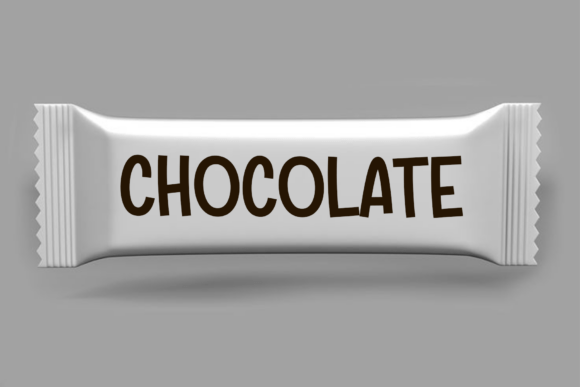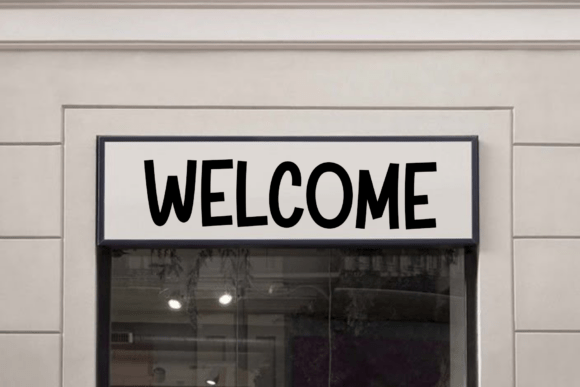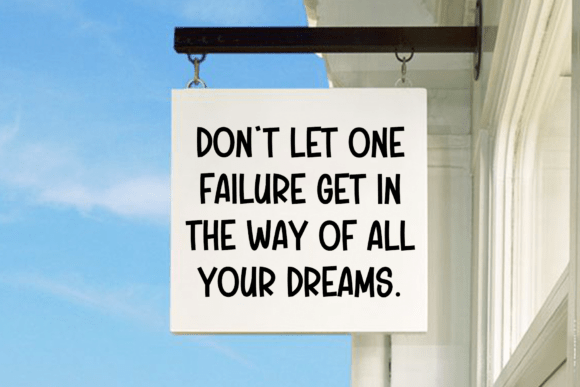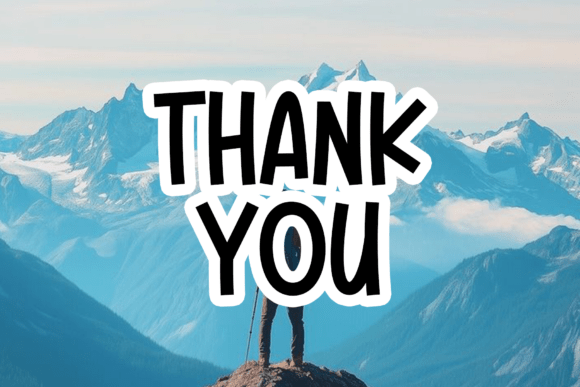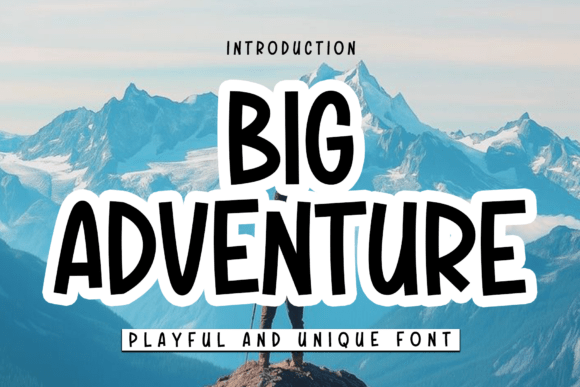
Introducing Big Adventure Font: Elevate Your Designs with a Modern Twist
In the world of typography, fonts play a crucial role in shaping the visual identity of a brand or project. For designers and crafters looking for a unique and modern sans-serif font, Big Adventure Font is an excellent choice. This smart and minimal handwritten font boasts rounded corners and distinctive letterforms, making it perfect for a wide range of applications, from branding and social media content to logos and digital projects.
What Makes Big Adventure Font Stand Out?
Big Adventure Font is designed to strike a balance between professionalism and creativity. Its soft yet striking appearance is achieved through the careful crafting of rounded corners and unique letterforms. This font is not just about aesthetics; it’s also highly versatile and can be used across various platforms and mediums.
Key Features of Big Adventure Font
- Rounded Corners: The rounded corners of Big Adventure Font give it a friendly and approachable feel, making it ideal for brands that want to convey a sense of warmth and approachability.
- Unique Letterforms: Each letter in Big Adventure Font is carefully designed to be distinctive and memorable, ensuring that your text stands out from the crowd.
- Handwritten Sans-Serif: The font’s handwritten sans-serif style adds a personal touch to any project, making it perfect for designers looking to add a human element to their work.
- Minimal and Smart Design: The minimalistic design of Big Adventure Font ensures that it is clean and easy to read, while its smart features make it highly adaptable to different contexts.
Big Adventure Font is incredibly versatile and can be used in a multitude of ways. Here are some of the ideal applications for this font:
- Branding: Use Big Adventure Font to create a unique and memorable brand identity that stands out from the competition.
- Social Media Content: Elevate your social media posts with a modern and eye-catching font that grabs attention.
- Logos: Create stunning logos that are both professional and creative, perfect for businesses looking to make a lasting impression.
- Digital Applications: From websites to mobile apps, Big Adventure Font is perfect for any digital project that requires a modern and clean aesthetic.
Why Choose Big Adventure Font?
In a sea of fonts, Big Adventure Font stands out for its unique combination of style, versatility, and readability. Here are some reasons why designers and crafters should consider adding it to their toolkit:
- Modern Edge: Big Adventure Font adds a modern edge to any project, making it perfect for designers looking to stay ahead of the curve.
- Easy to Read: Despite its creative and unique design, Big Adventure Font remains highly legible, ensuring that your message is always clear.
- Highly Adaptable: Whether you’re working on a branding project, social media content, or a digital application, Big Adventure Font can be easily adapted to fit your needs.
Big Adventure Font is more than just a font; it’s a design statement. With its smart and minimal handwritten sans-serif style, rounded corners, and unique letterforms, it offers a fresh and modern alternative to traditional fonts. Whether you’re a designer looking to elevate your branding projects or a crafter seeking a distinctive font for your digital applications, Big Adventure Font is an excellent choice. Its versatility, readability, and striking appearance make it the perfect tool to add a modern edge to any project.
So, embark on your next design adventure with Big Adventure Font and discover how this unique font can transform your work.